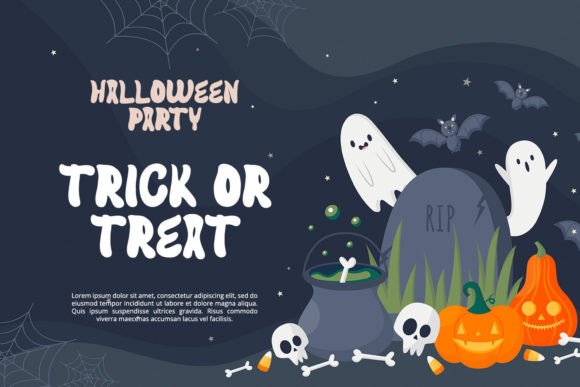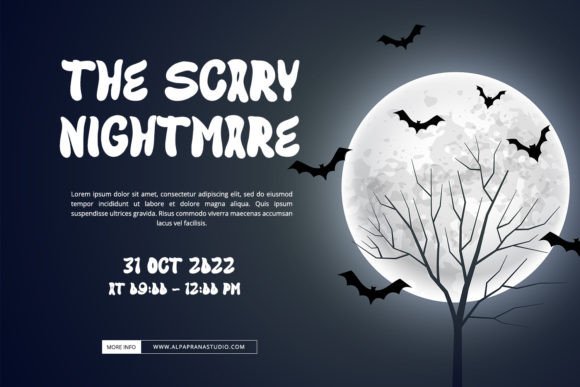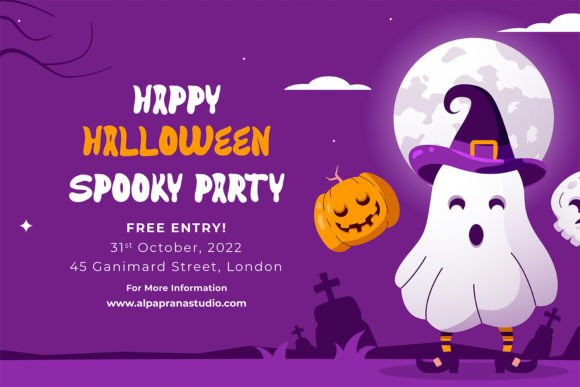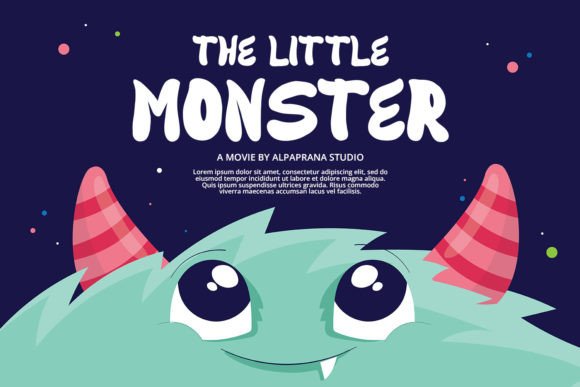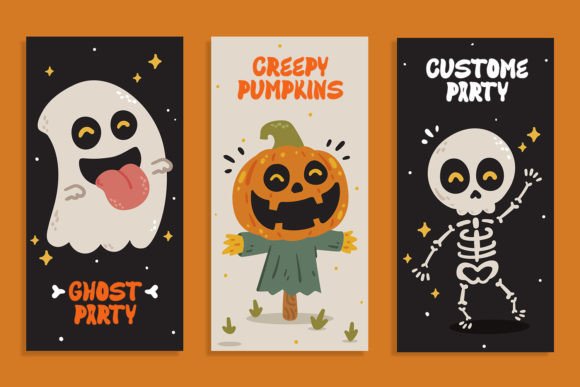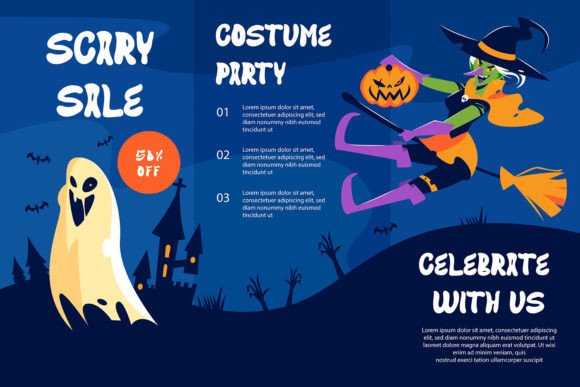
Introduction to Good Zombie Font
As designers, we’ve all been there – staring at a blank canvas, trying to bring our creative vision to life. Sometimes, all it takes is the right font to spark inspiration. For me, that font is the Good Zombie Font. Its quirky charm and playful feel make it the perfect addition to any design project. Whether you’re creating a logo, designing a magazine, or crafting a poster, this stunning display font is sure to bring a smile to your face.
With its cute and high-quality design, the Good Zombie Font is a valuable resource for designers of all levels. Its transparent background makes it easy to integrate into any design, and its free download option makes it accessible to everyone. As a design resource, it’s a game-changer for creative projects that need a little extra oomph.
Key Features of Good Zombie Font
- High-quality design with a unique zombie-inspired aesthetic, perfect for creative projects.
- Includes a range of characters, including uppercase and lowercase letters, numbers, and special characters, making it a versatile design resource.
- Perfect for designers, artists, and writers looking to add a touch of undead flair to their creative project, from horror-themed novels to zombie-themed video games.
Honest Review: Good Zombie Font
I recently stumbled upon the Good Zombie Font while searching for a unique design resource for a creative project. The font itself has a quirky and playful vibe that caught my attention.
- High-quality design: The Good Zombie Font has crisp lines and a clear, readable texture.
- Perfect for creative projects: The Good Zombie Font is ideal for designs that require a touch of humor or whimsy.
- ⚠️ Limited font styles: The Good Zombie Font only comes in a single style, which may not be suitable for complex designs.
- ⚠️ No bold or italic variations: This might be a drawback for designers who prefer to have more font options.
Overall, the Good Zombie Font is a fun and quirky addition to any design resource library. While it may not be suitable for every project, it’s a great choice for creative projects that require a unique touch. I’d recommend it for designers looking for a high-quality, free download to add some personality to their designs.
The Good Zombie Font is ideal for a variety of creative projects, including horror-themed designs, zombie-inspired art, and apocalyptic-themed graphics. You can also use the font in a free download or as a design resource for personal or commercial use.
Is the Good Zombie Font suitable for designs with transparent backgrounds?
Yes, the Good Zombie Font features a transparent background, making it ideal for designs that require a high level of design flexibility. This allows designers to easily combine the font with other design elements and create visually striking compositions.